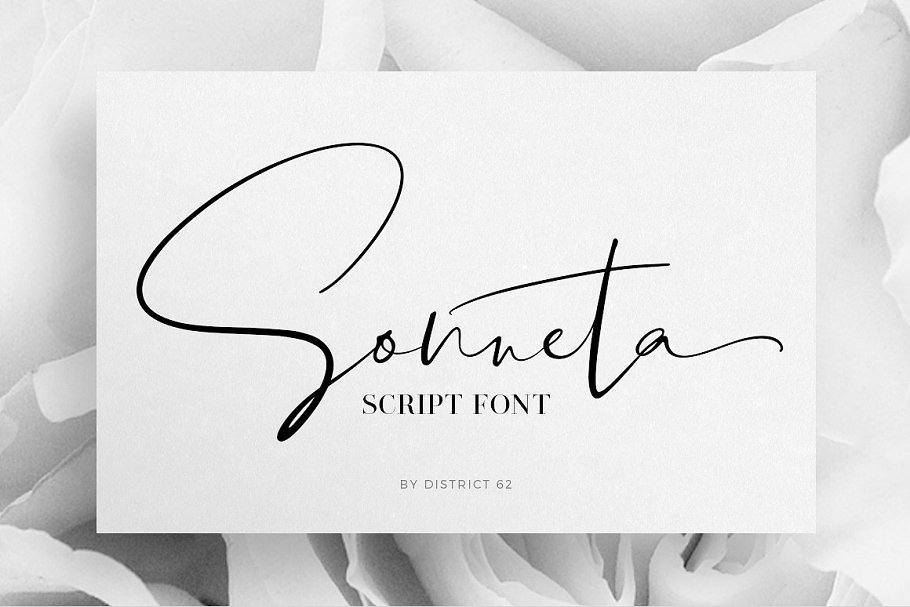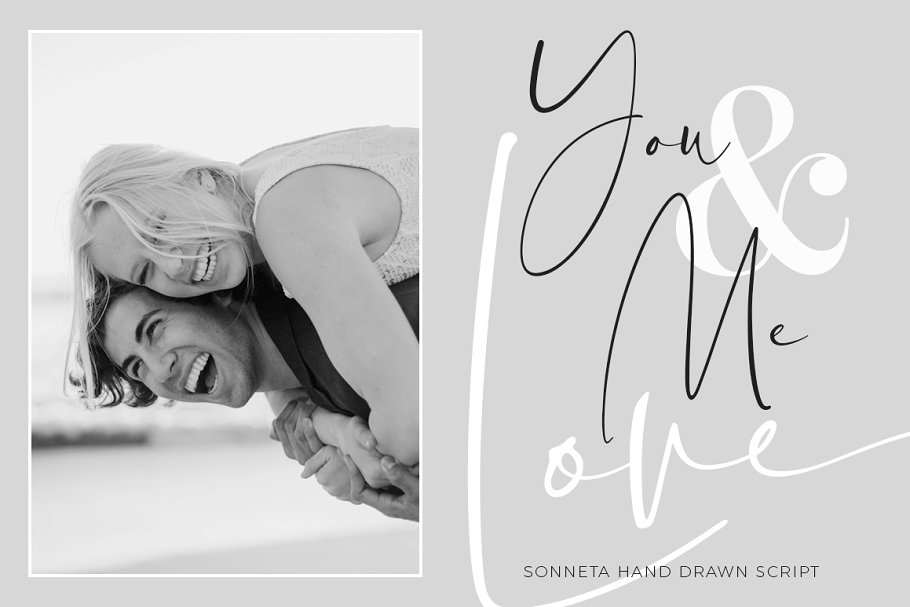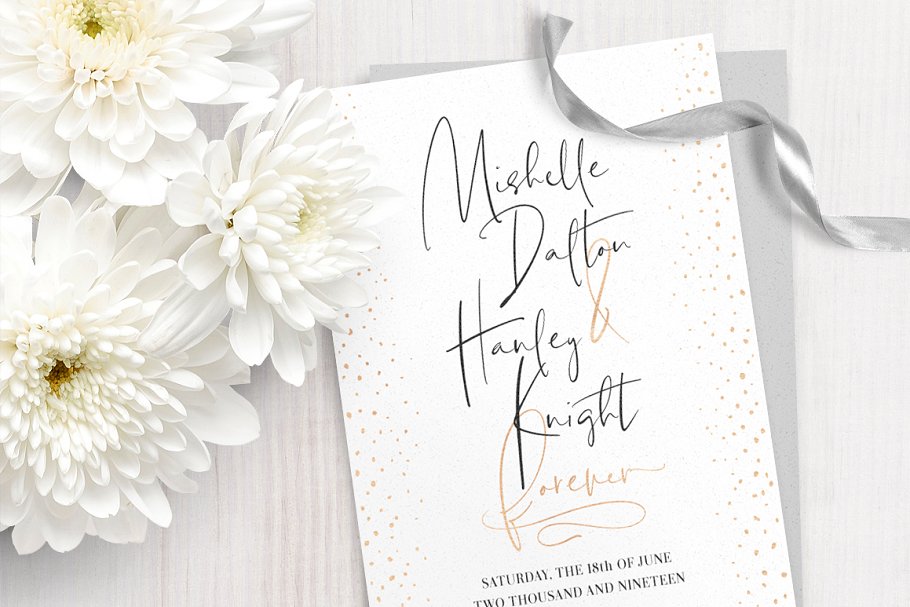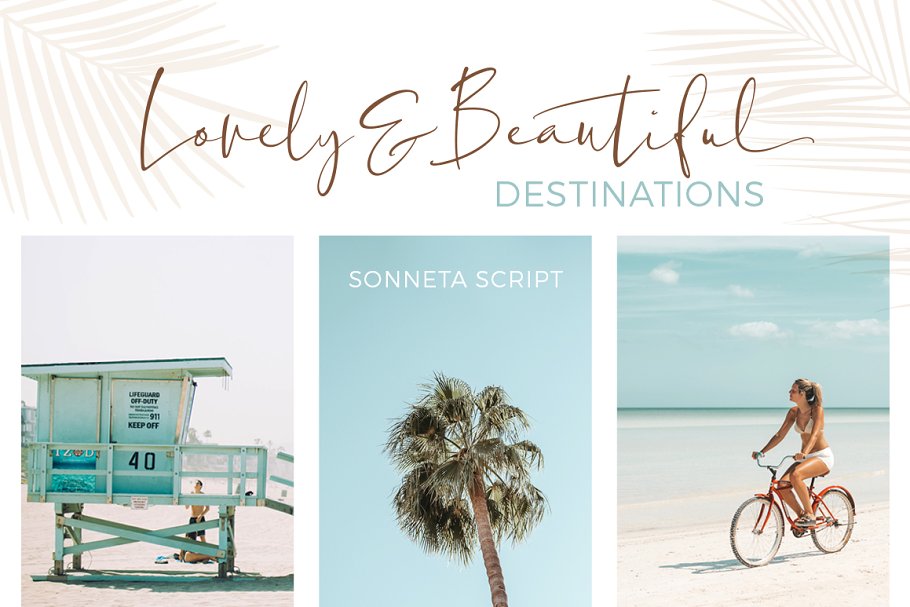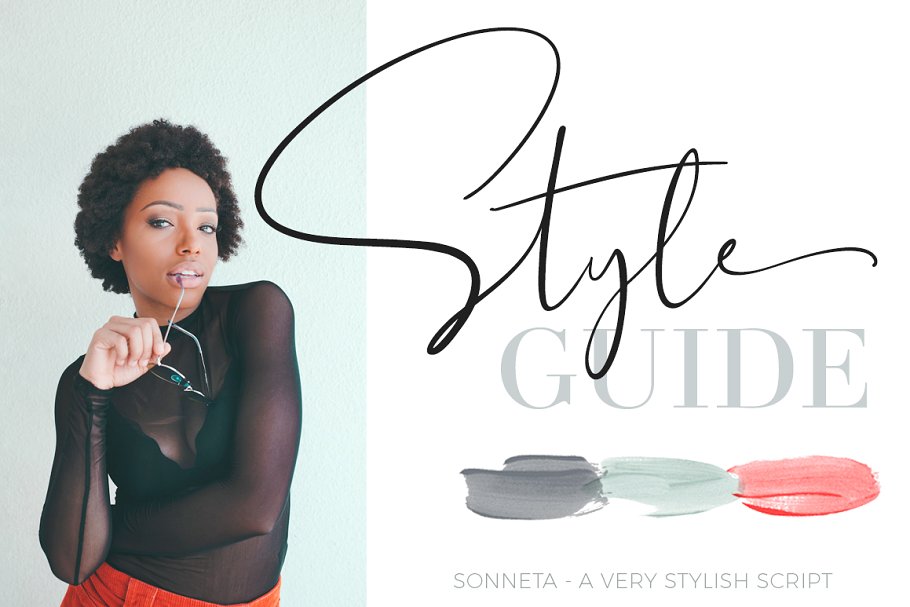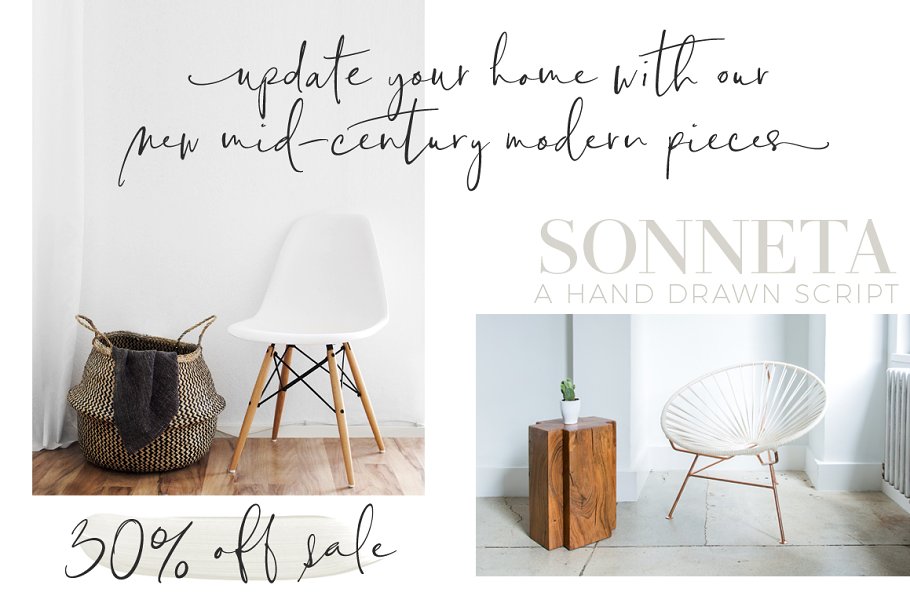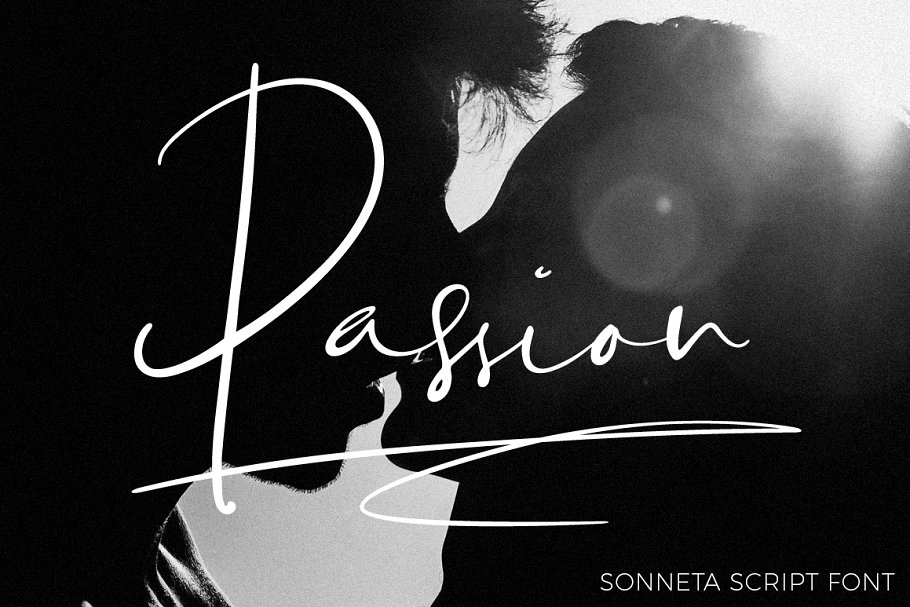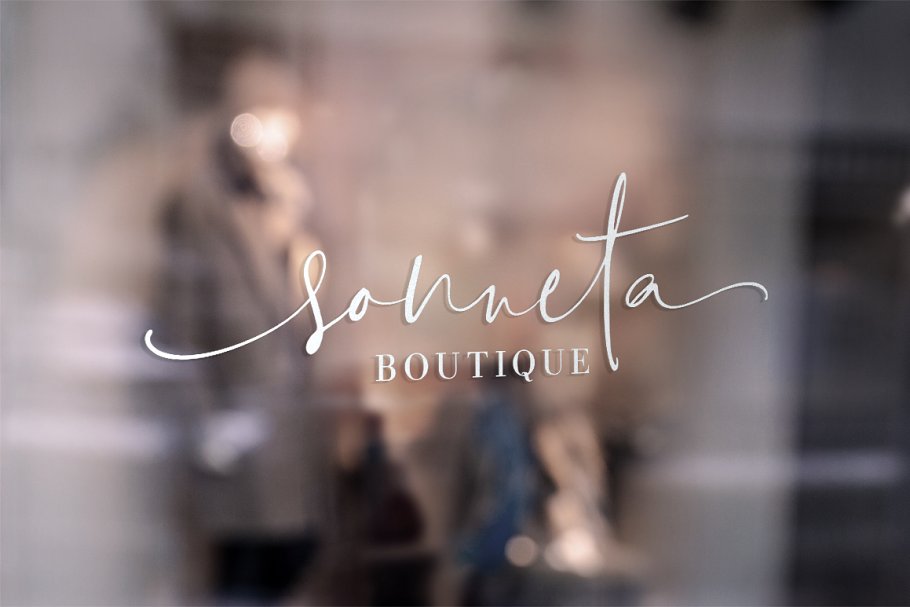
About the Sonneta Script Font
BRAND NEW THIRD SET OF ALTERNATE CHARACTERSIntroducing Sonneta Script, a modern, free-flowing hand drawn font, Sonneta has THREE COMPLETE CHARACTERS SETS including upper and lower cases with a full set of beginning and ending swashes, ligatures, and optional characters along with a full set of upper and lowercase foreign characters supporting Western European languages
The characters were hand drawn and then meticulously digitized to create this modern script, Use the character sets the way they are, or mix them up and use the additional options to create authentic looking hand lettered pieces, There is one set of extravagant capitals that is perfect for monograms and another set of capitals that has more of a printed letter look
Check out the previews to see what you can do, This script is perfect for wedding suites, social media, blogs, titles, magazine layouts, monograms, businesses and anywhere you need a free flowing modern looking script, WHAT YOU GET1 Sonneta Script font that includes all 560 characters, ligatures and extras for users of software that supports Open Type